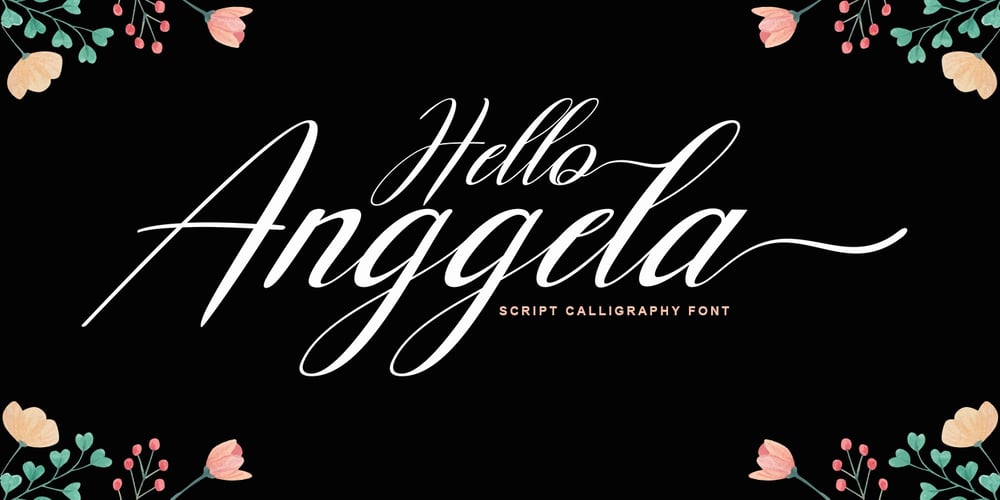
Hello Anggela Font Family was designed by Afri Giani and published by Gian Studio. Hello Anggela contains 1 styles and family package options. Hello Anggela Script a new fresh & modern script with a handmade calligraphy style, decorative characters and a dancing baseline! So beautiful on invitation like greeting cards, branding materials, business cards, quotes, posters, and more!!Hello Anggela Script come with 275+ glyphs. The alternative characters were divided into several Open Type features such as Swash, Stylistic Sets, Stylistic Alternates, Contextual Alternates. The Open Type features can be accessed by using Open Type savvy programs such as Adobe Illustrator, Adobe InDesign, Adobe Photoshop Corel Draw X version, And Microsoft Word. And this Font has given PUA unicode (specially coded fonts). so that all the alternate characters can easily be accessed in full by a craftsman or designer.How to access and use font glyphs on a Windows PC :https://designbundles.net/design-school/how-to-access-use-font-glyphs-windowsAccessing Font Glyphs with Font Book on Mac :https://designbundles.net/design-school/access-font-glyphs-macCan’t find Glyphs on Mac? Make sure you are in Repertoire Mode!https://designbundles.net/design-school/cant-find-font-glyphs-macNOTE : Tail is available only for lowercase letters.Thank you